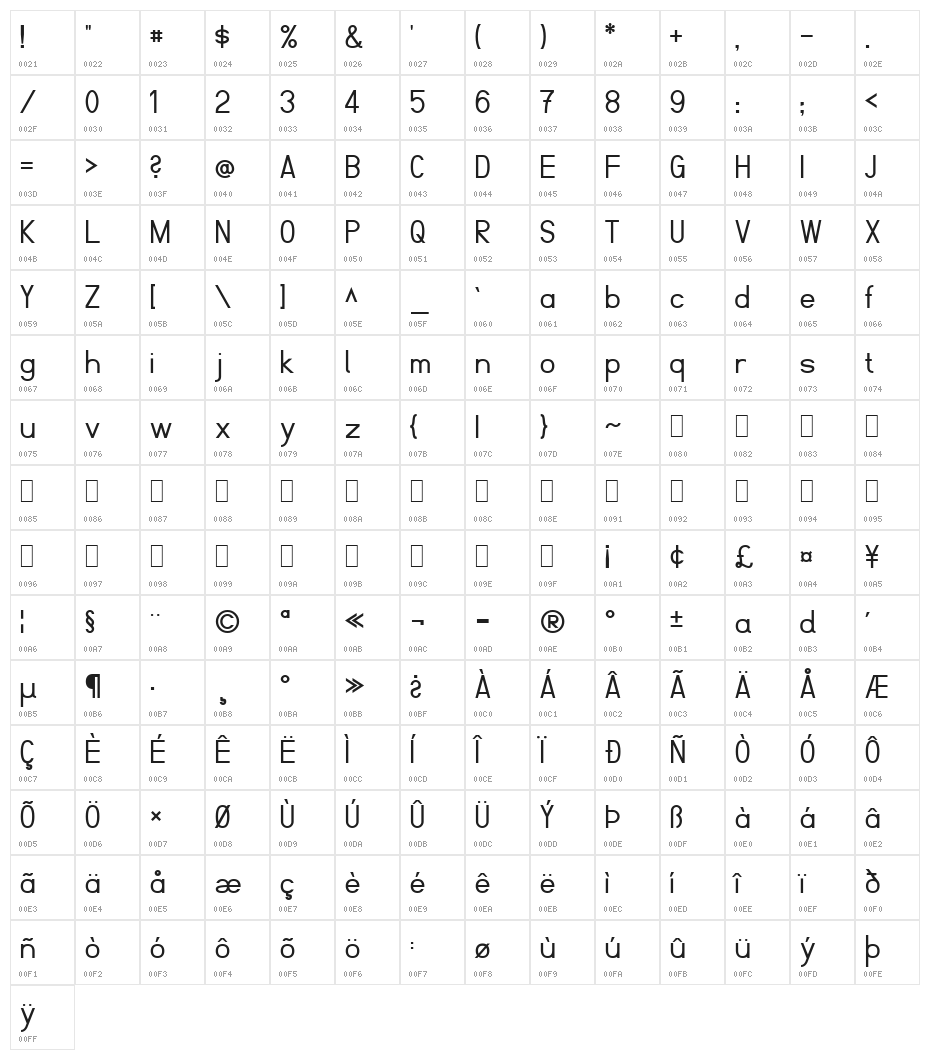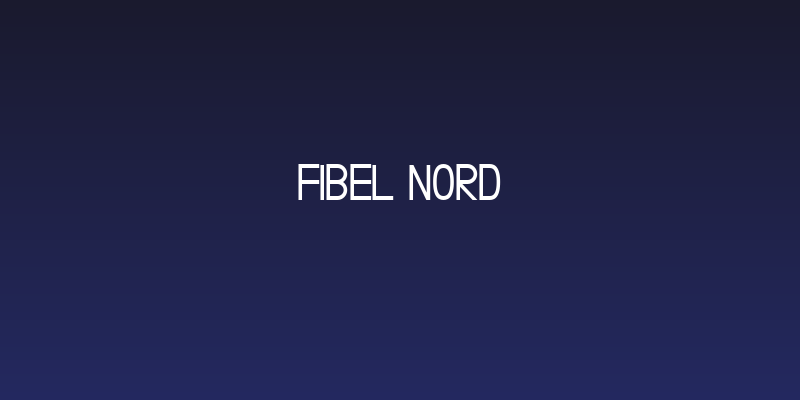
Fibel Nord Font
Fibel Nord Description
This font features a clean, geometric sans-serif design with uniform stroke widths, creating a modern and minimalist appearance. The characters are well-proportioned, with a consistent height and width that enhances readability. The uppercase letters are bold and assertive, while the lowercase letters maintain a balanced and approachable look. The numerals are clear and distinct, making them suitable for various applications. Special characters are designed with the same attention to detail, ensuring they integrate seamlessly with the rest of the typeface. Overall, this font exudes a sense of clarity and precision, making it ideal for contemporary design projects.